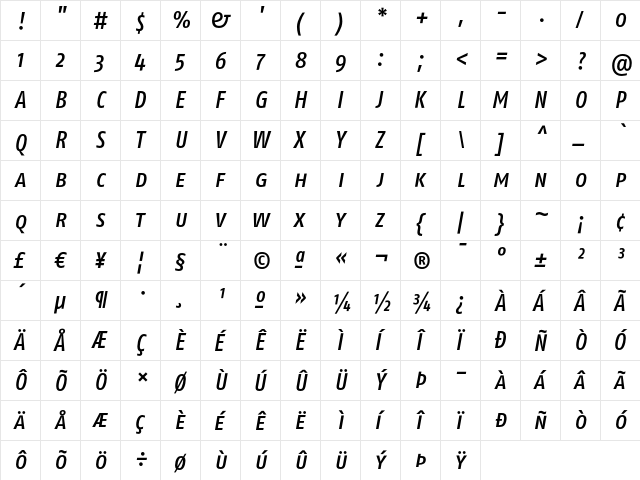
FagoCo MediumtalicCaps
Design Context for FagoCo Typeface
FagoCo offers clean, dependable letterforms without strong stylistic allegiance, making it a practical choice for designers who need flexibility.